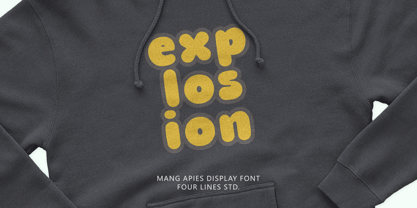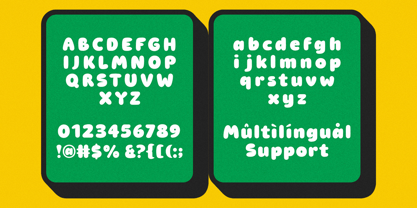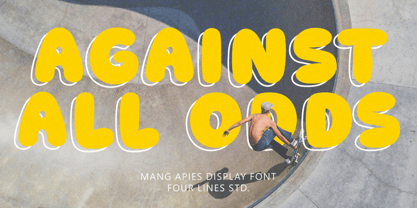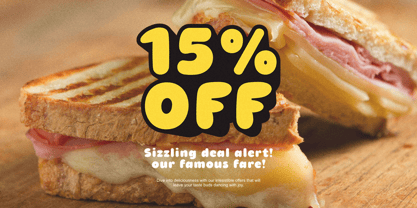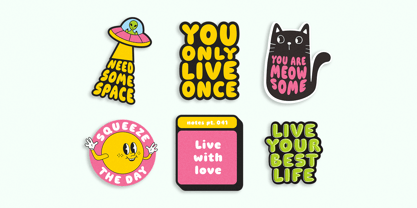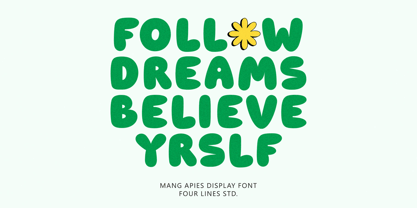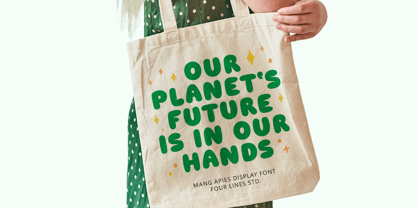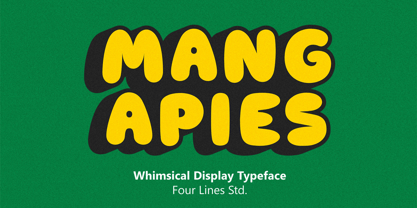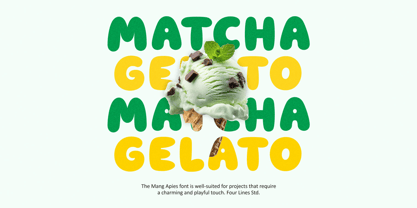
Mang Apies
by Four Lines Std
The Mang Apies Font Family was designed by Zain Fahroni and published by Four Lines Std. Mang Apies contains 1 styles.
MangApies is a unique display font with soft, rounded edges that evoke a sense of playfulness. With its balloon-like form, this font is perfect for designers who want to add a touch of lightheartedness and personality to their creations. Whether for branding or promotional material, MangApies delivers a fun, modern aesthetic